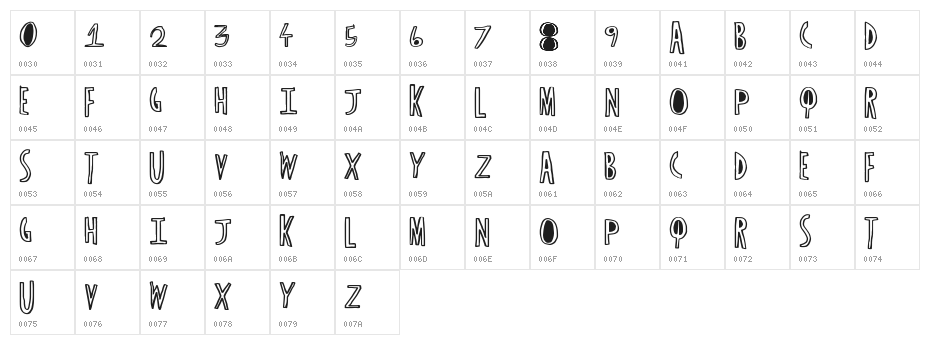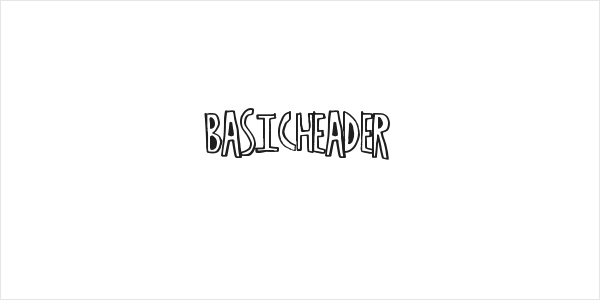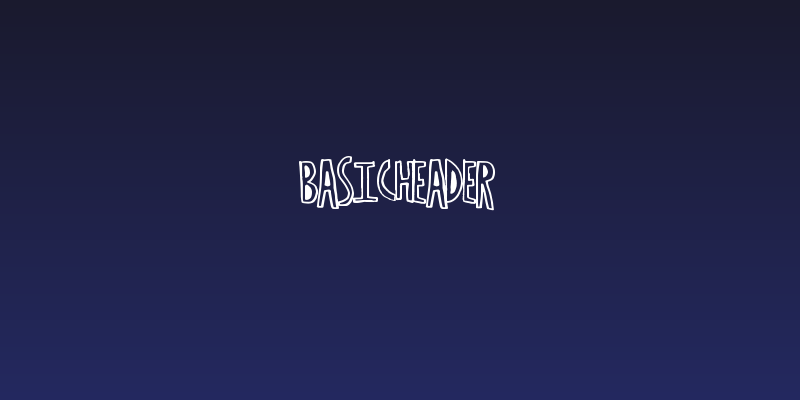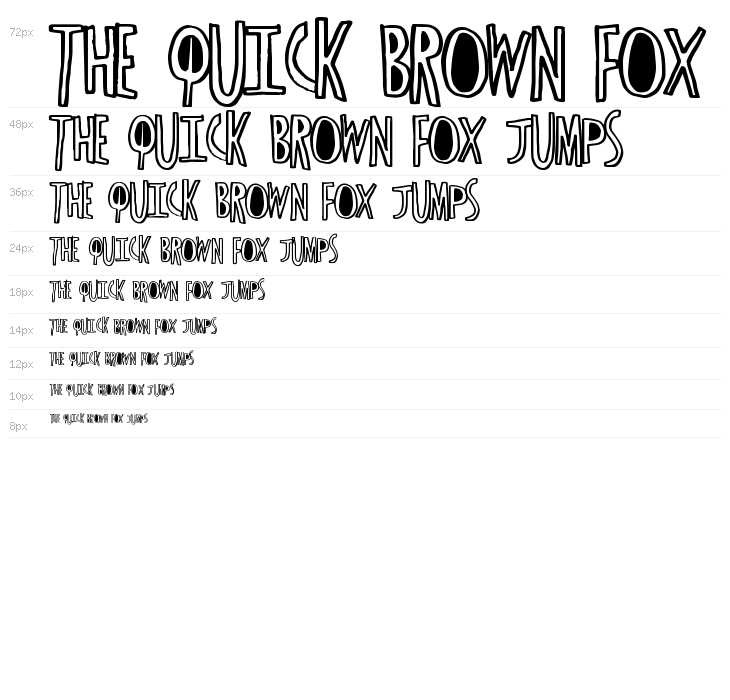
BasicHeader Font
BasicHeader Description
This font features a playful and bold design with a hand-drawn aesthetic. The uppercase and lowercase letters are characterized by their irregular, slightly wavy lines, giving them a whimsical and informal appearance. The numbers follow the same style, maintaining consistency throughout the font. The special characters are creatively integrated, adding to the font's unique charm. The overall look is dynamic and energetic, making it suitable for projects that require a fun and engaging visual element.